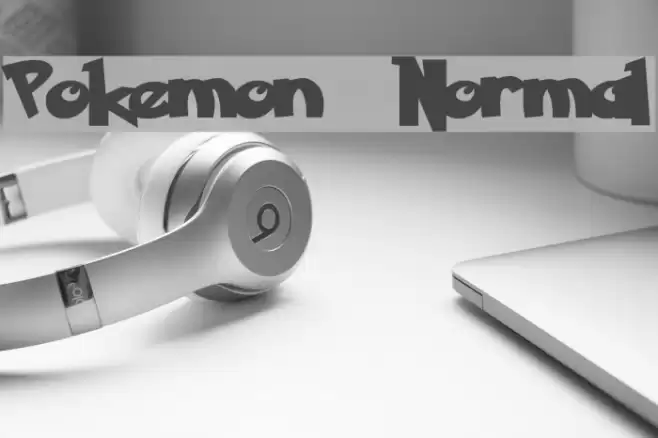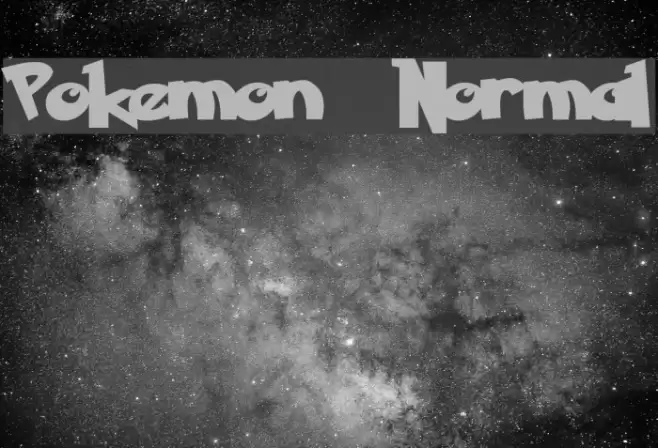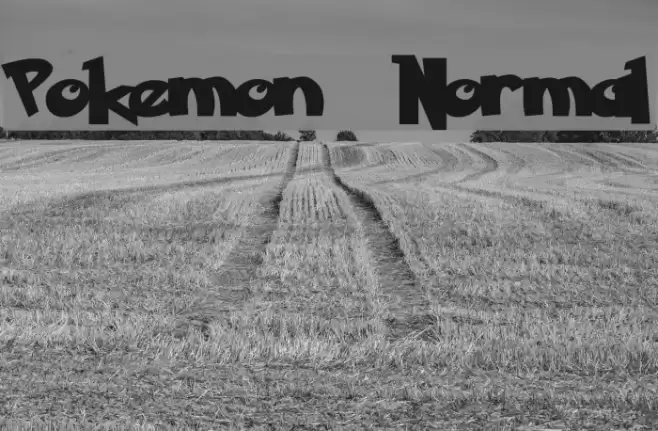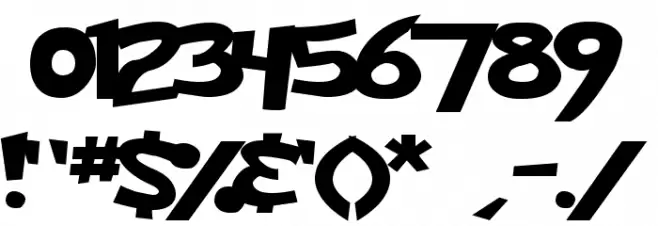
Pokemon Normal Font
Pokemon Normal Description
This font features bold, playful characters with a distinct, cartoon-like appearance. The letters are thick and have a whimsical, energetic style, reminiscent of animated titles. The uppercase and lowercase letters maintain a consistent weight, with exaggerated curves and angles that give them a dynamic feel. Numbers and special characters follow the same design principles, ensuring a cohesive look across all glyphs. The font's unique style makes it stand out, ideal for projects that require a fun and engaging visual impact.
A bold, playful font with a cartoon-like, energetic style from Famous fonts.
- Proposed Projects: Ideal for children's book covers, animated movie titles, video game graphics, and playful branding.
- Overall Style: Playful, Cartoon-like